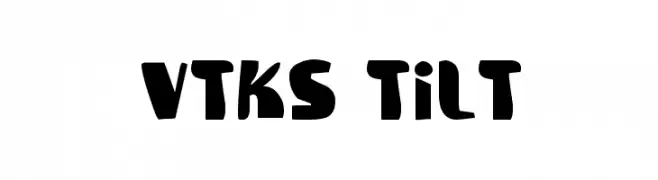
( Jelloween - T. Koster - jelloween.deviantart.com )
A classic serif font with high contrast and elegant strokes.
( Jovanny Lemonad - Ivan Gladkikh - typetype.ru/ )
A playful, hand-drawn font with irregular strokes and a whimsical style.
( TypeLand - Digidea Lee - typeland.com/ )
A bold, brush-style font with dynamic, hand-painted strokes.
( TypeLand - Digidea Lee - typeland.com/ )
A bold, dynamic brush script with expressive, hand-painted strokes.
( campotype - andi aw. masry - www.campotype.com )
A bold, gothic-inspired font with sharp, angular edges and intricate detailing.
A distressed, grunge-style font with a textured, worn appearance.
A distressed, grungy font with a chaotic, textured appearance.
A bold, playful font with a dynamic tilt and rounded, whimsical characters.
A bold, distressed font with a weathered texture for impactful designs.
A modern, clean sans-serif font with consistent stroke width and balanced spacing.